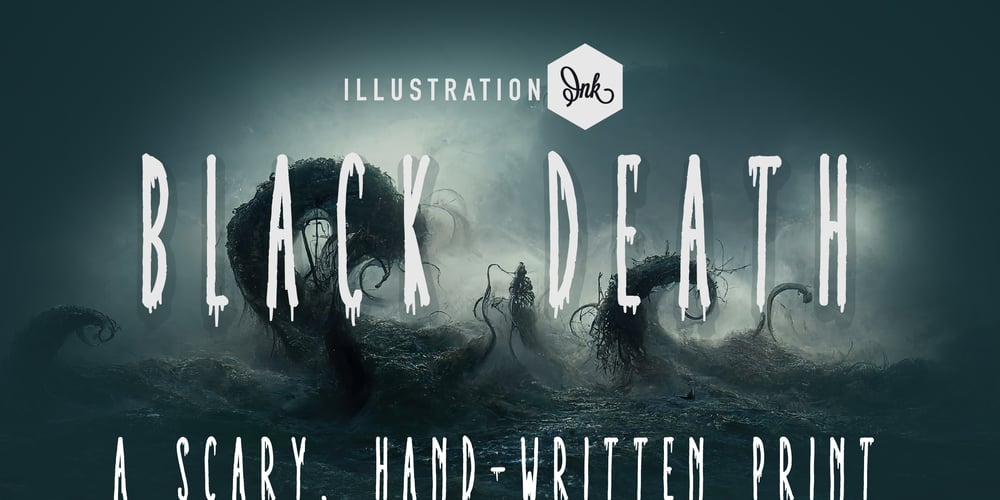
ZP Black Death Font Family was designed by Illustration Ink and published by Illustration Ink. ZP Black Death contains 2 styles and family package options. This widely spaced, hand-written print is dripping with creep factor for a scary, creepy, Halloween font.